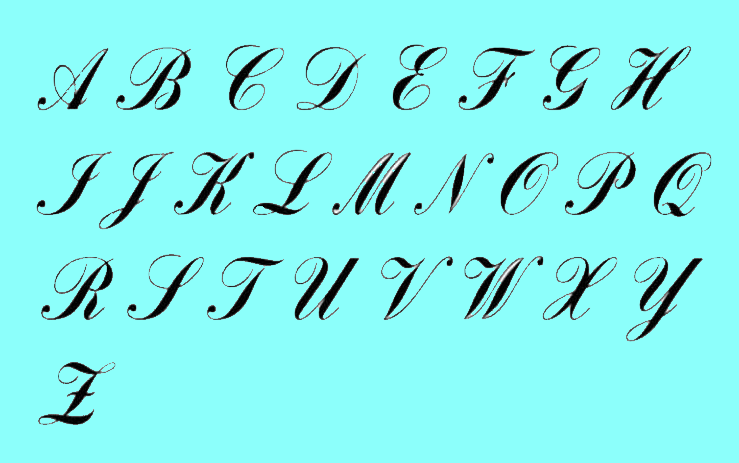
The Edwardian Script Font reflects true beauty because it is associated with style and this has made it to be most preferred by designers and other working professionals when they need formal and looking more decorative fonts. Known for its readability and more rounded designs lost within the realm of calligraphy, this font brings elegance into projects. Popular as the script font for the marriage invitations, certificates or branding luxurious products, the Edwardian Script Font is ideal for formal designs.
What is Edwardian Script Font?
The Edwardian Script Font belongs to script category typeface created by a talented typographer Edward Benguiat. Announced by International Typeface Corporation in the early ’90s, the font is based on English Calligraphy of the eighteen century, when lettering is light, headings somewhat more condensed, with the characteristics of a light underscored by delicate strokes and decorative forms.
This is unique from many other script fonts that although stylized Edwardian Script has elements that are perfect for either formal or decorative use. It looks like handwritten letters, produced by pointed pen and that is why it looks quite artistic and sophisticated. Most people know it for being the best signal of luxury, tradition, and elegance.
Features of Edwardian Script Font
The Edwardian Script Font stands out for its unique features:
- Elegant, Flowing Design: Smooth, calligraphy-like strokes with delicate curves create a refined and sophisticated look.
- Calligraphy-Inspired Style: Influenced by 18th-century English copperplate calligraphy, it offers an authentic handwritten feel.
- Versatility: Ideal for formal designs yet adaptable for various creative projects.
- High-Quality Ligatures and Swashes: Decorative details add to its visual appeal and elegance.
- Readable Yet Ornate: Combines decorative beauty with excellent readability, even at smaller sizes.
Applications of Edwardian Script Font
The Edwardian Script Font is widely used for its elegance and sophistication in various professional and creative contexts:
- Wedding Invitations: Perfect for adding class and romance to wedding stationery.
- Event Branding: Used in materials for formal events like galas and award ceremonies.
- Certificates and Diplomas: Enhances the prestige of official documents.
- Luxury Branding: Conveys elegance and exclusivity in logos and packaging for high-end brands.
- Greeting Cards and Invitations: Ideal for creating refined and decorative cards and party invitations.
Edwardian Script Font is an old-looking font that gives a project an appearance that is rich and stylish to the eyes. Being a modern take on calligraphy, it features harmonious flowing lines, gentle curves, and the options to use in anything from weddings, certificates, luxury branding, and more.